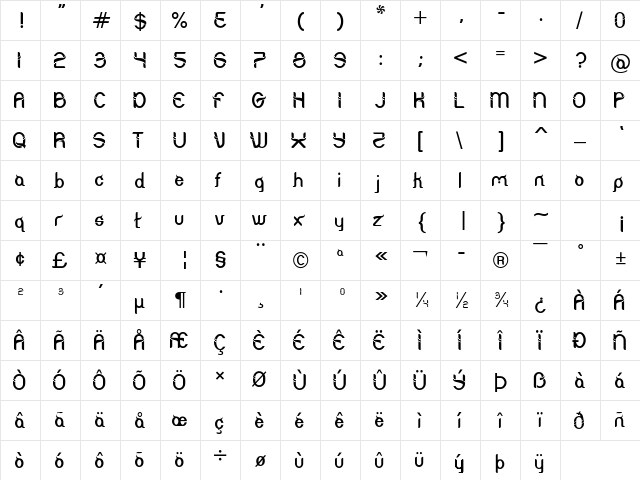
Morgana Regular
Design Context for Morgana Typeface
Morgana is a composed and adaptable typeface that performs quietly and consistently across a wide range of design contexts.
Pro Tip: Use Morgana in both headline and body roles to test its range before committing to a single application.